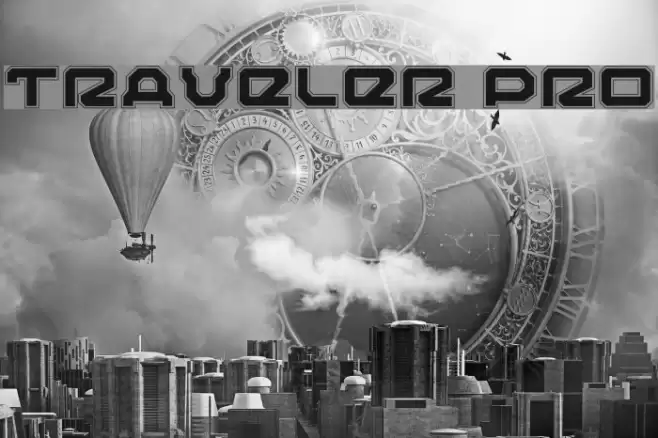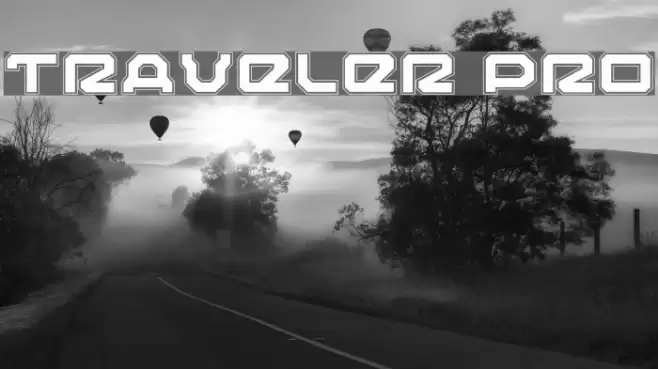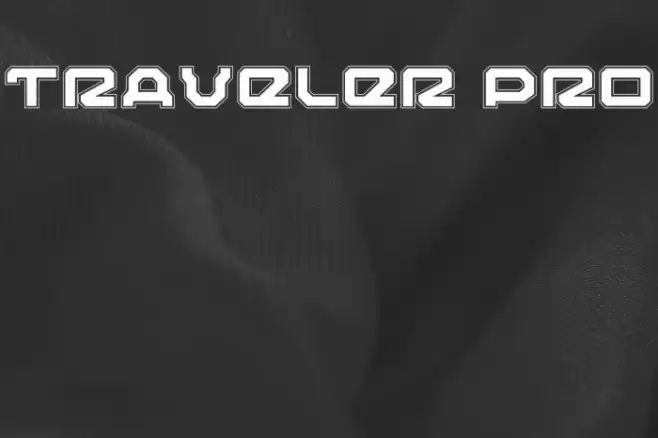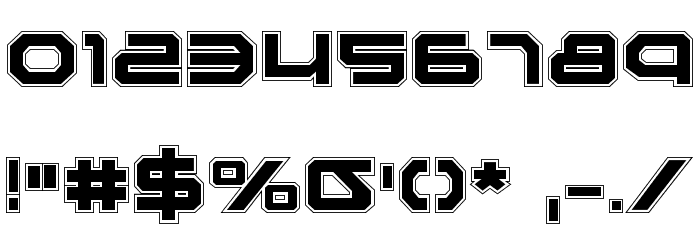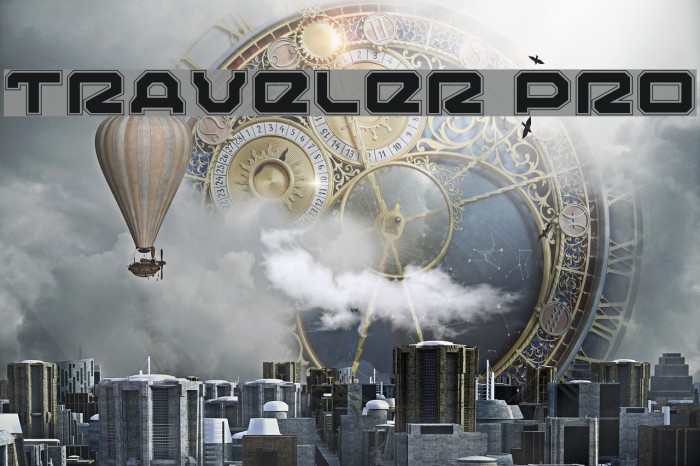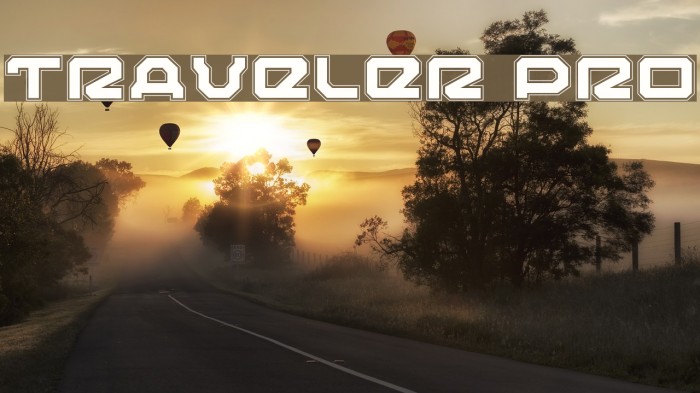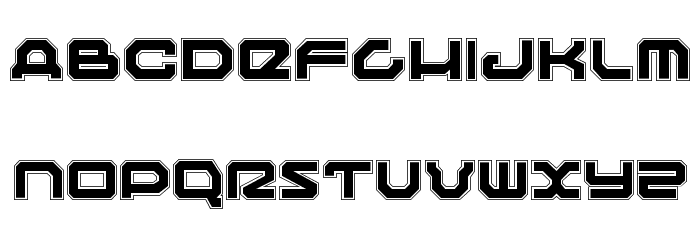
Traveler Pro Font
Traveler Pro Description
This font features a bold, futuristic design with a strong geometric influence. The characters are constructed with thick, angular lines and sharp edges, creating a sense of movement and modernity. The uppercase and lowercase letters maintain a consistent style, with a uniform height and width that enhances readability. The numbers and special characters follow the same design principles, ensuring a cohesive look across all elements. The font's unique style makes it stand out, while its structured form provides clarity and impact.
A bold, geometric font with a futuristic and modern aesthetic from Sci-fi fonts.
- Proposed Projects: Ideal for sci-fi themed projects, technology branding, video game titles, and modern posters.